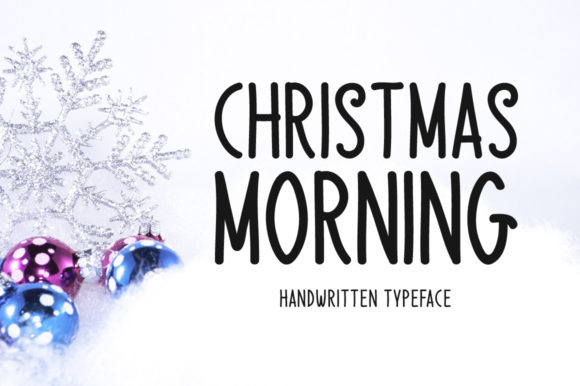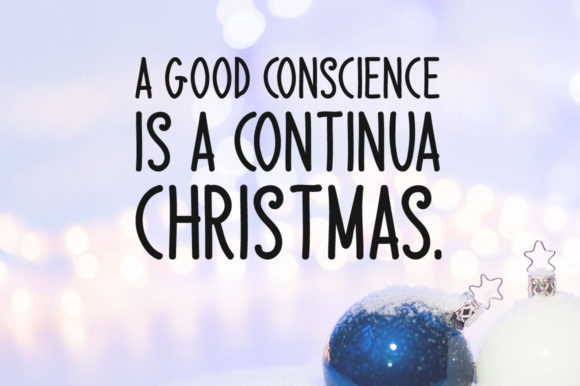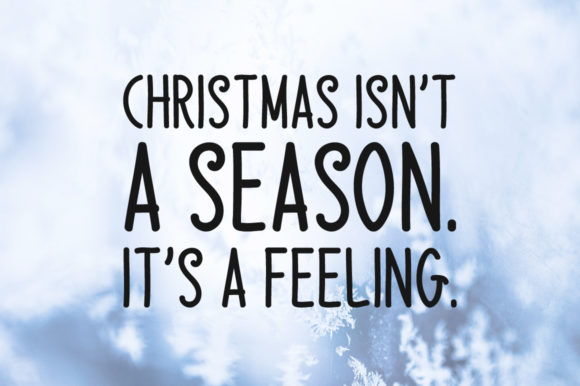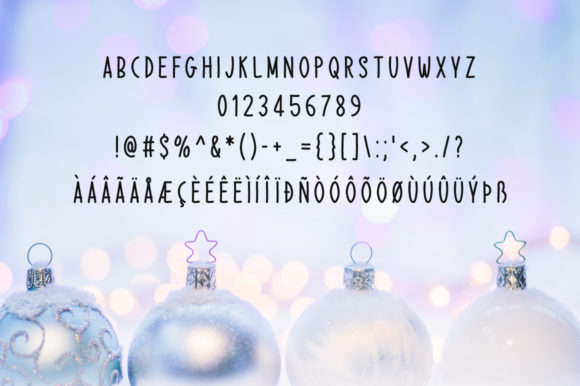
HomeScript FontsChristmas Morning Font Script Fonts Christmas Morning Font FacebookXPinterestWhatsApp Christmas Morning Font Poster 2 Christmas Morning Font Poster 3 Christmas Morning Font Poster 4 About Christmas Morning Font Christmas Morning is a simple and casual script that will add a touch of beauty to your next design concept! DOWNLOAD ON CREATIVE FABRICAThis font is sold and delivered by Creative Fabrica. Font Canyon may earn a commission if you buy through this link. People also explored Befriend Font Summer Vintage Font Milagros Font Hello Januari Font Mommy Poppy Font Cruiser Font Stockings and Candy Font Neugrooms Font Cute Aeshly Font 331 0 TagsChristmas Morning Font Previous articlePevanytta Script FontNext articleNorthrow Font LEAVE A REPLY Cancel reply Comment: Please enter your comment! Name:* Please enter your name here Email:* You have entered an incorrect email address! Please enter your email address here Website: Save my name, email, and website in this browser for the next time I comment. Personal Use Free Remember Personal Use Free Read more about this font Screengem Personal Use Free Read more about this font Amillina Monogram Personal Use Free Read more about this font Mahisya Personal Use Free Read more about this font BLOG Modern Sans-Serif Fonts That Brands Love in 2025 In 2025, modern sans-serif fonts remain a top choice for brands looking to project clarity, professionalism, and... Exploring Font Trends The 10 Best Handwriting Fonts to Add Personality to Your Designs 5 Fonts That Will Dominate Design Trends in 2026